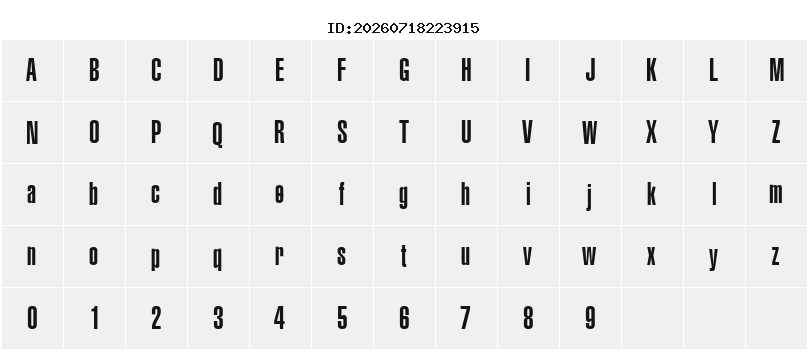
About Corporate Compressed Ultra.ttf
Corporate Compressed Ultra.ttf is a modern, elegant sans-serif font designed for ultimate readability and visual harmony. Perfect for branding, headlines, web design, and print materials.